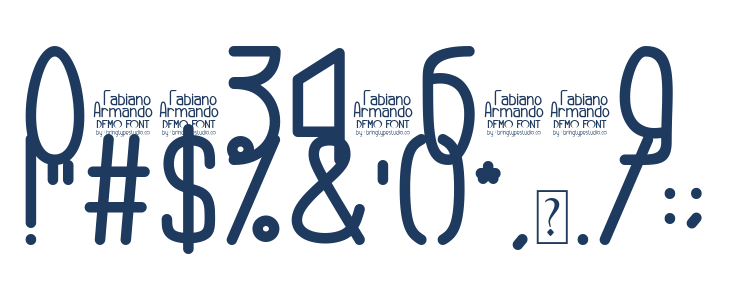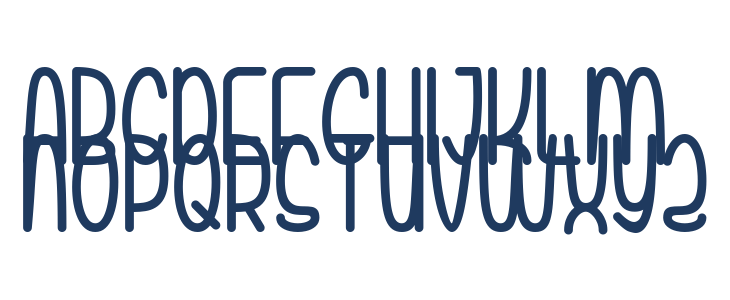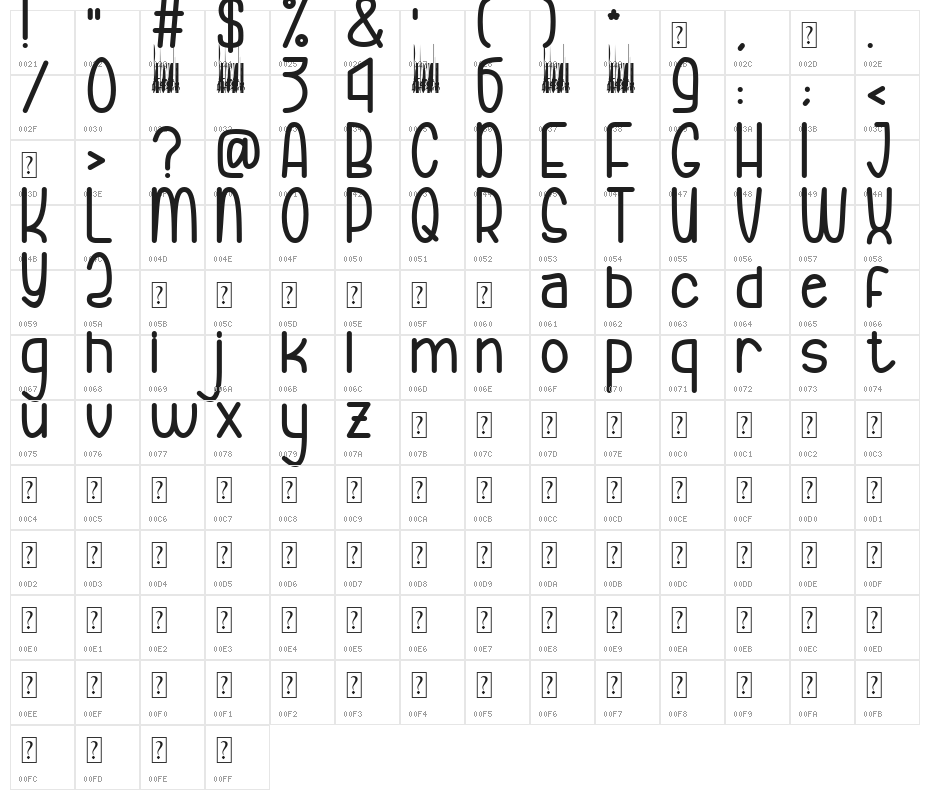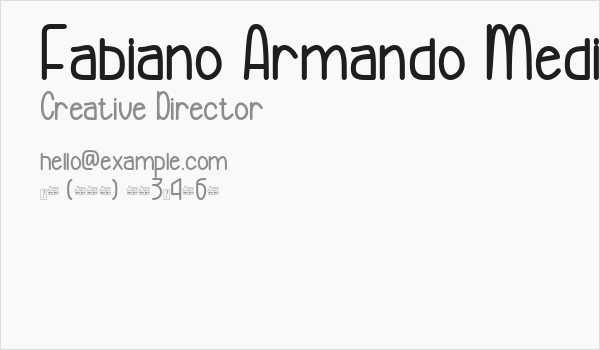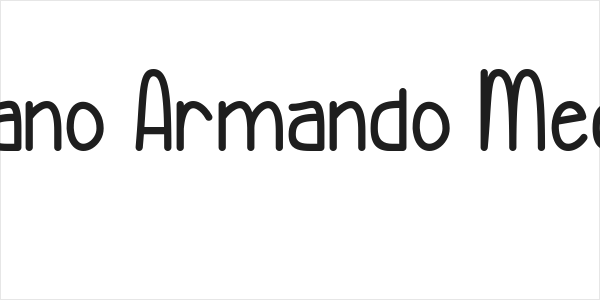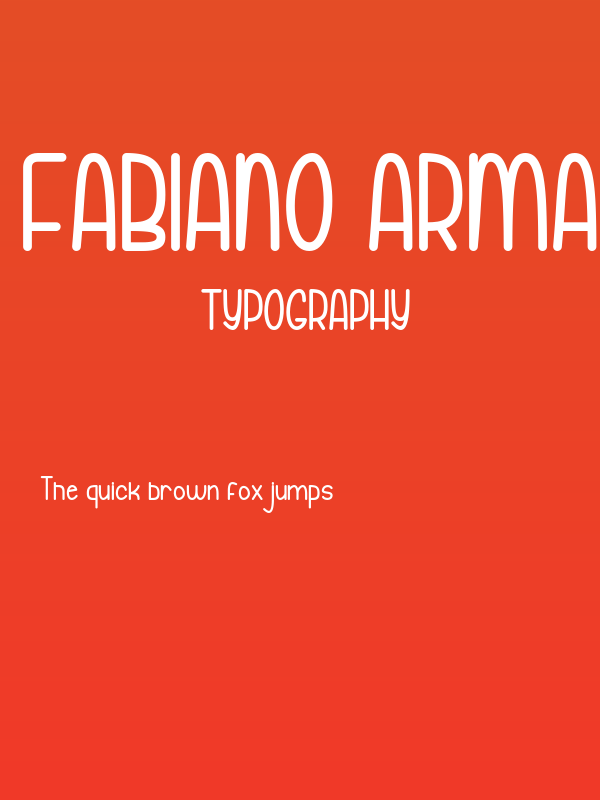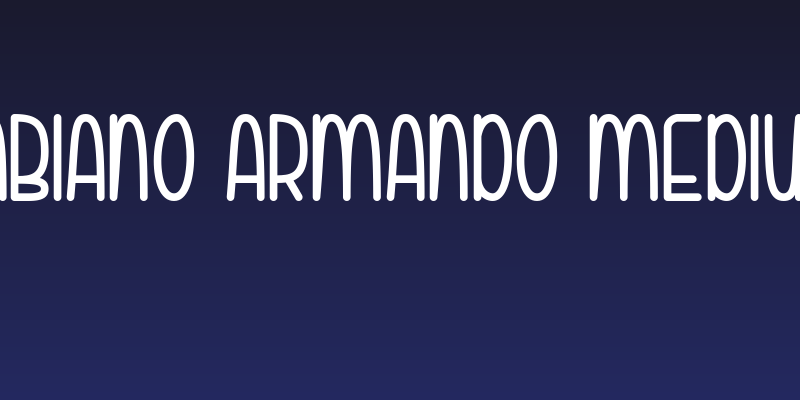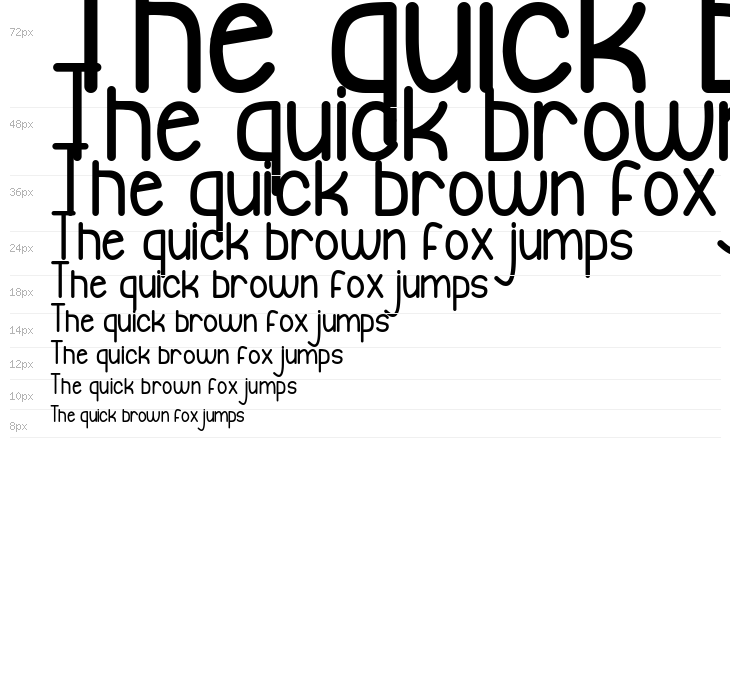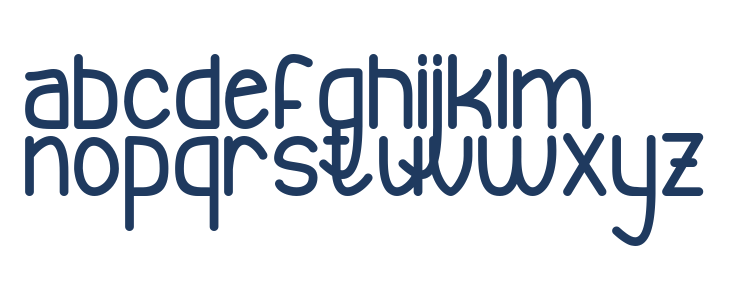
Fabiano Armando Medium Font
Fabiano Armando Medium Description
A rounded, geometric sans-serif font with uniform stroke width, tall ascenders, and a playful, modern appearance. The characters are slightly condensed with generous x-height and open counters, giving it a friendly and approachable feel.
| Overall Style | Modern, Playful |
| Use Case | Headlines, Posters, Branding, Packaging |
| Proposed Projects | Children's books, posters, branding for creative businesses, packaging, informal headlines. |